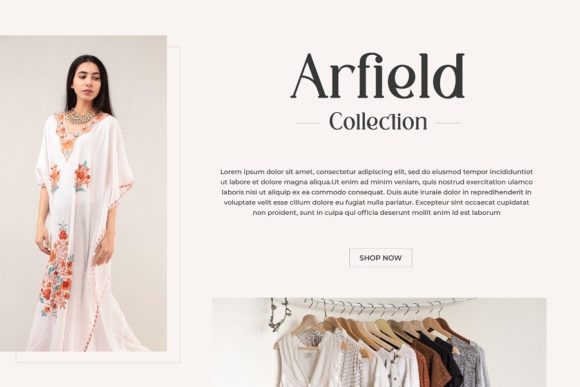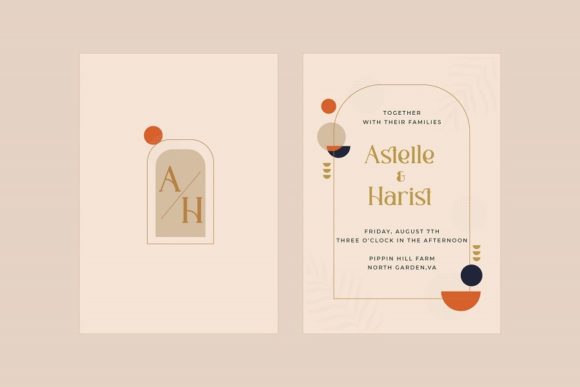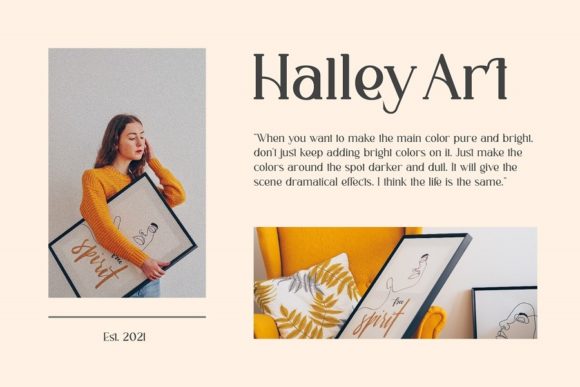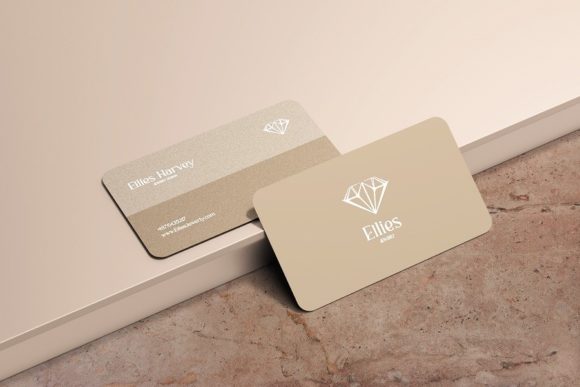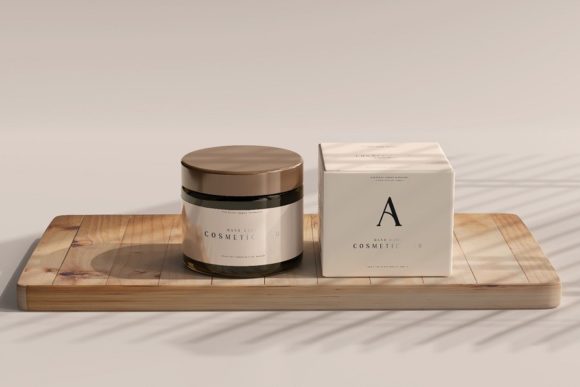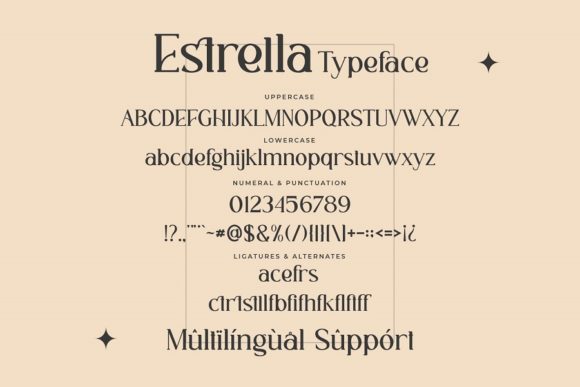
The Designer’s Dream: A Deep Dive into Estrella Font
I’ll never forget the time I was working on a luxury brand project, and my client asked me to create a logo that exuded elegance and sophistication. I scoured the internet for the perfect font, but nothing seemed quite right. That was until I stumbled upon Estrella Font. ✨ This modern and elegant serif font has been a game-changer for my design projects, and I’m excited to share my experience with you.
An Honest Review of Estrella Font
- ✅ Versatility: Estrella Font is incredibly versatile, making it perfect for a wide range of design projects, from logos and branding to packaging and editorial design.
- ✨ Elegant and Sophisticated: The font’s modern serif design gives it a sleek and luxurious feel that’s perfect for high-end brands.
- ✅ Legibility: Estrella Font is highly legible, even at small sizes, making it perfect for body text and captions.
- ✅ OpenType Features: The font comes with a range of OpenType features, including stylistic alternates, ligatures, and glyphs, which allow for endless creative possibilities.
While Estrella Font is an amazing addition to any design project, there are a few things to keep in mind: ⚠️
- ⚠️ Not Suitable for All Niches: While Estrella Font is elegant and sophisticated, it may not be the best fit for projects that require a more playful or casual tone.
The Story Behind Estrella Font
Estrella Font was designed by a team of typographers who wanted to create a modern and elegant serif font that would meet the needs of designers and crafters. The font’s name, “Estrella”, means “star” in Spanish, reflecting the team’s goal of creating a font that shines bright in any design project.
| Font Name | Estrella Font |
| Author | Aqeel_Art |
Q: What is Estrella Font?
A: Estrella Font is a modern and elegant serif font that’s perfect for a wide range of design projects.
Q: What are the OpenType features of Estrella Font?
A: Estrella Font comes with a range of OpenType features, including stylistic alternates, ligatures, and glyphs.
Q: Is Estrella Font suitable for body text?
A: Yes, Estrella Font is highly legible and can be used for body text, making it perfect for editorial design and publishing projects.